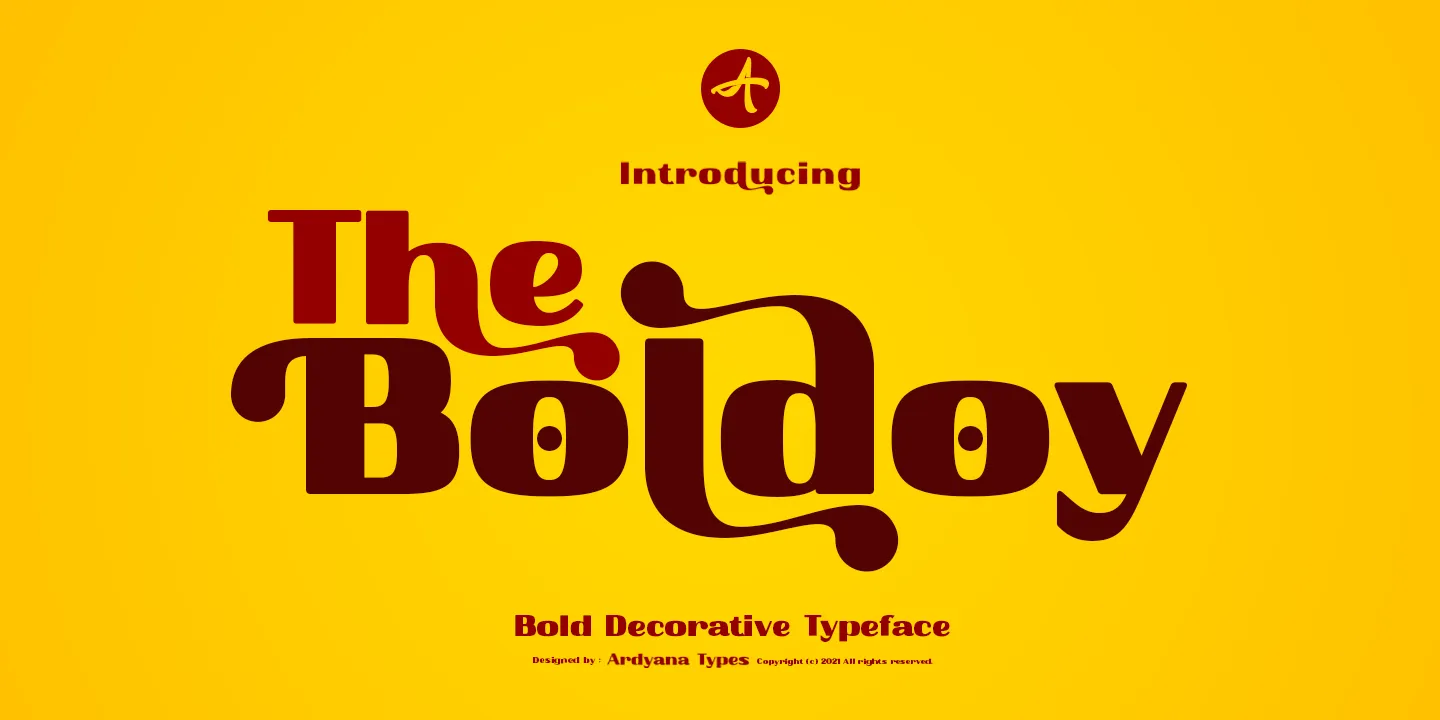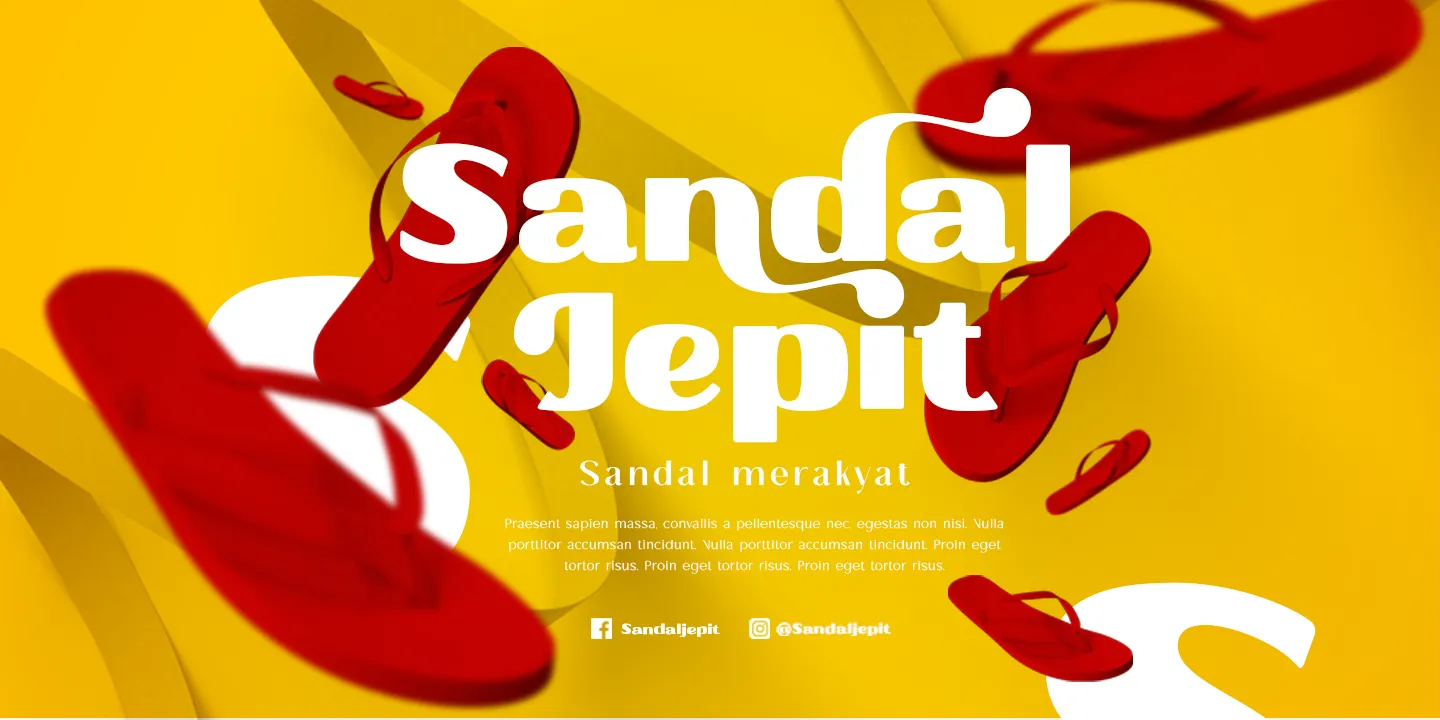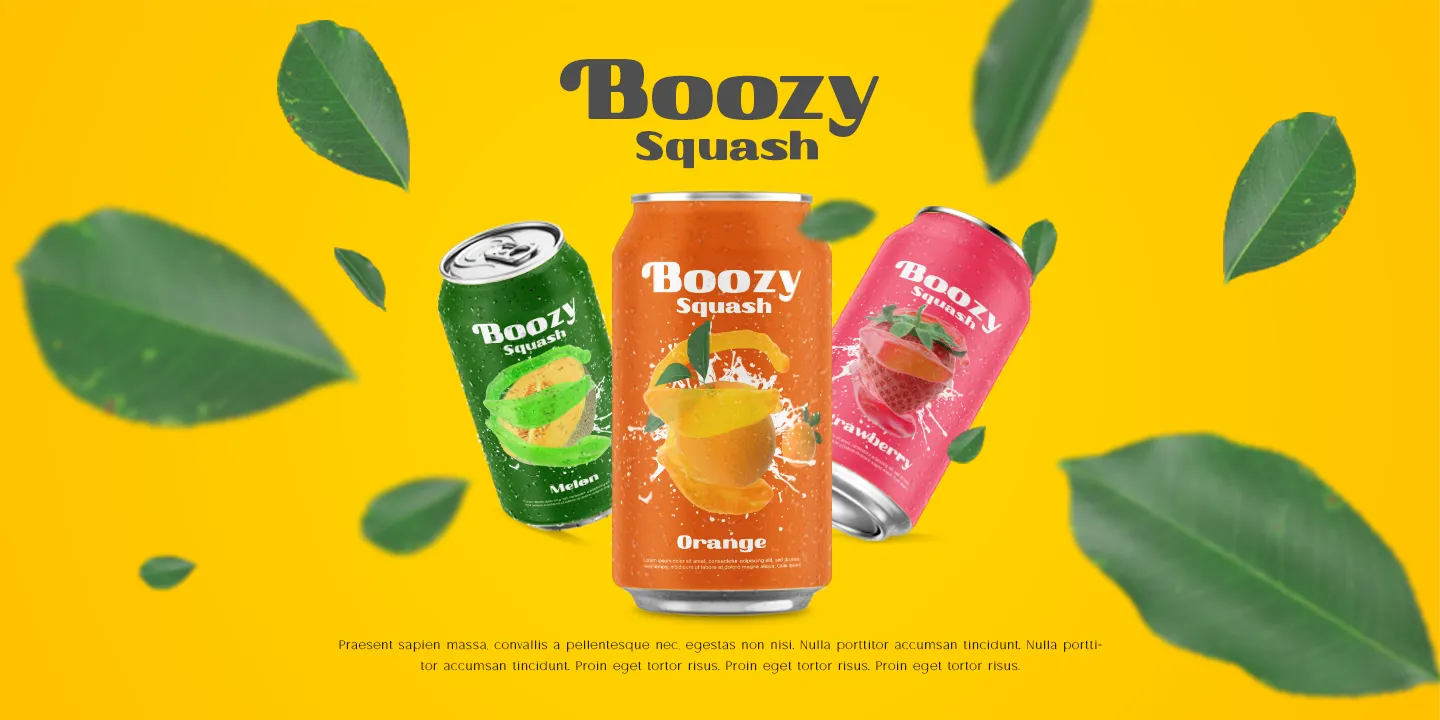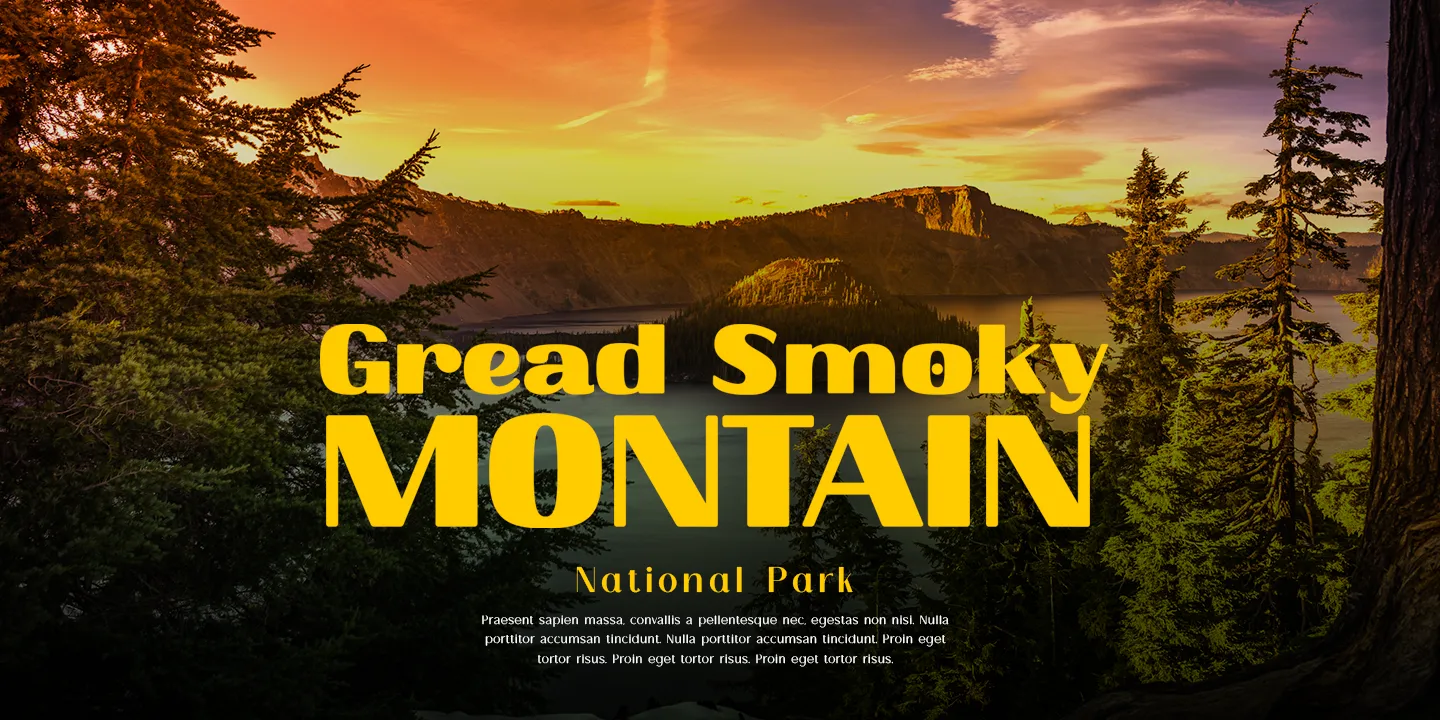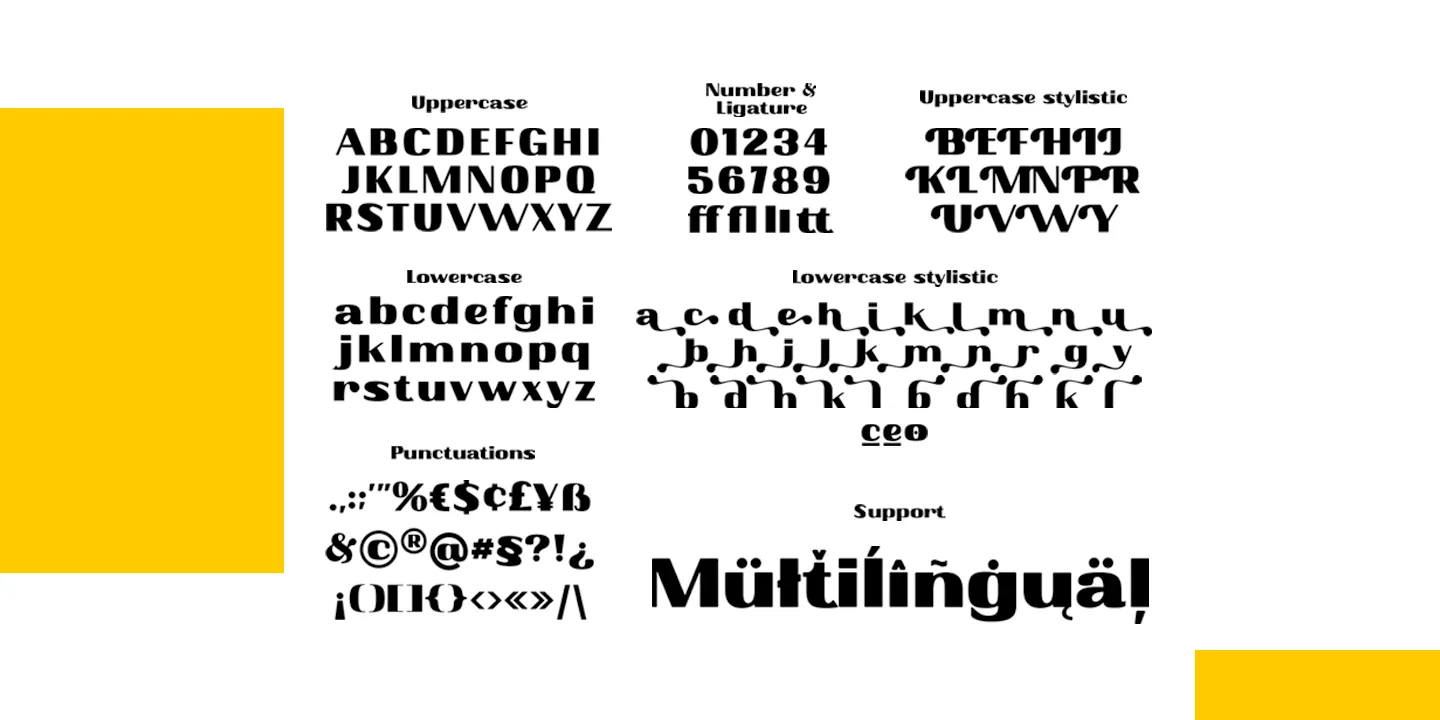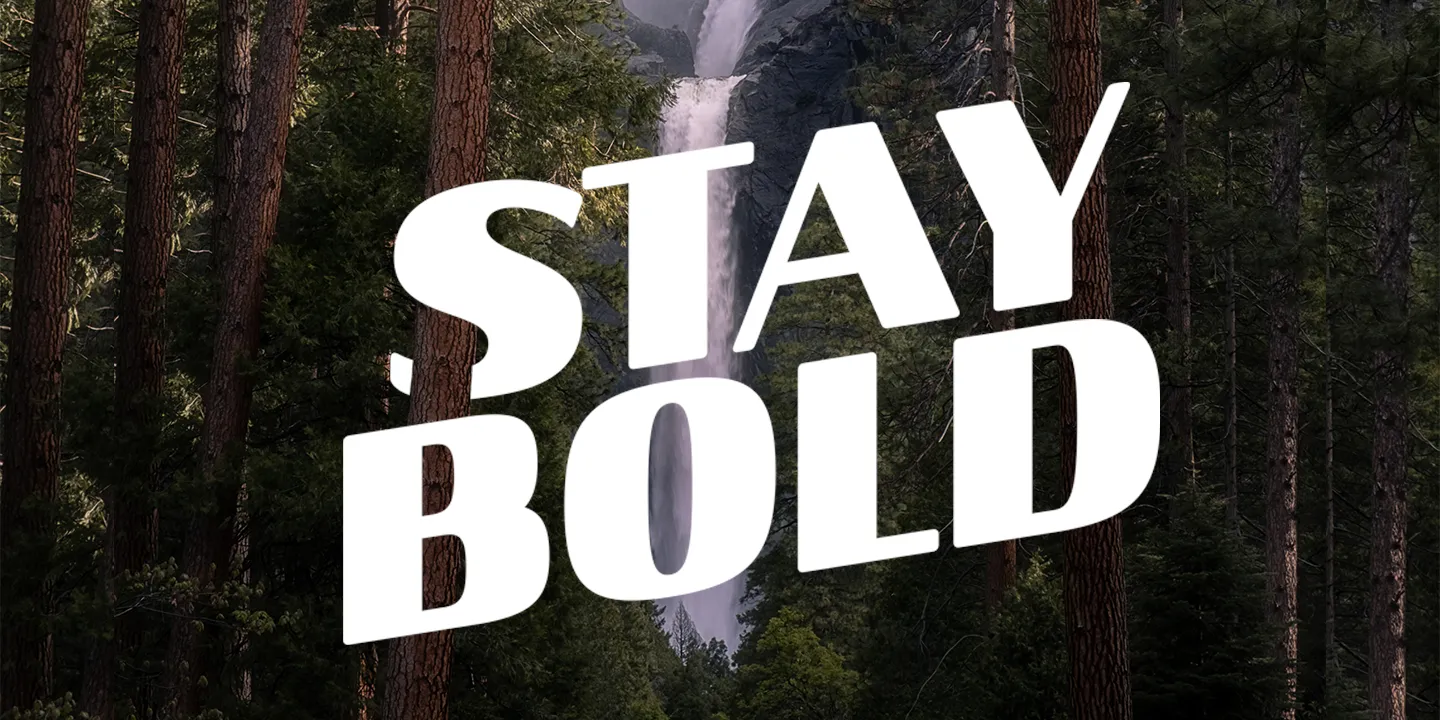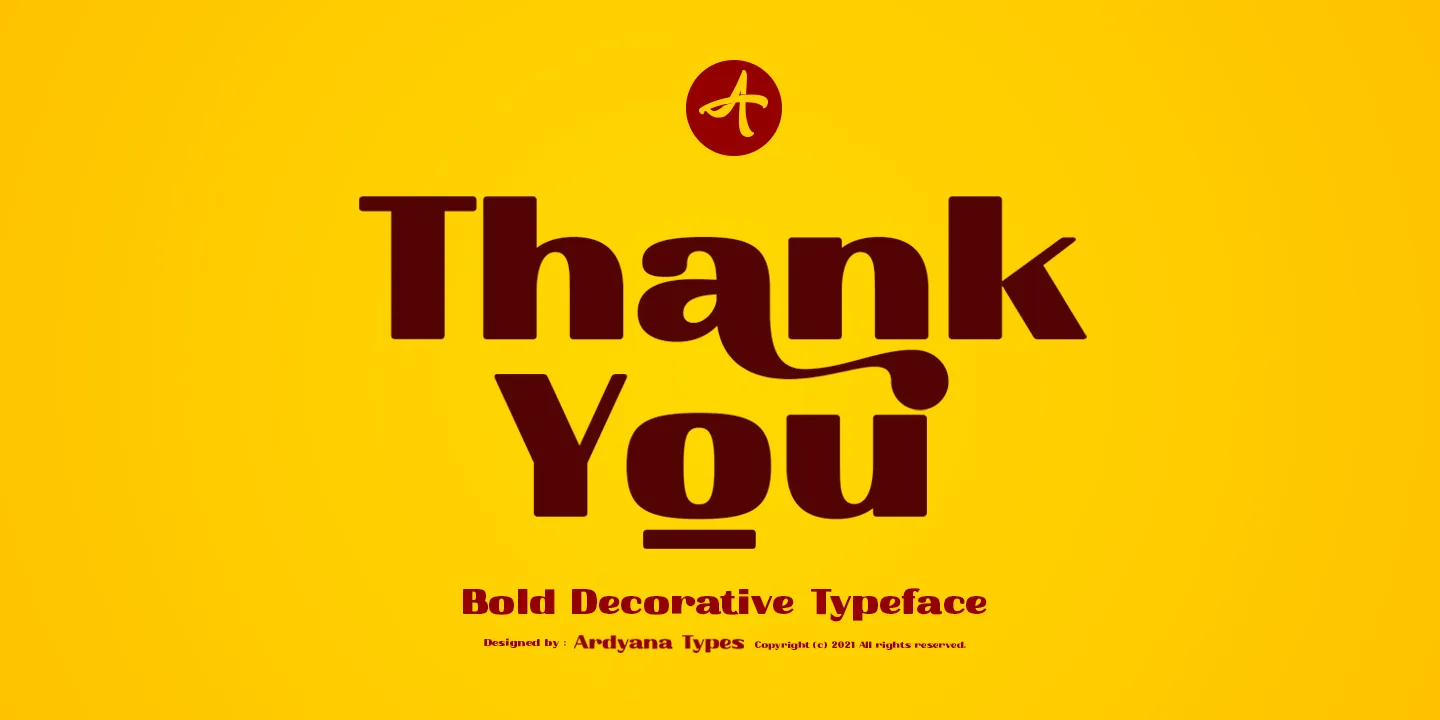
Boldoy
Boldoy is here everyone~ an attractive Typeface with agile and energic character
See the beefy trunk? it will attract more attention like telling “hug me” Boldoy come up with many decoration in multilanguage
When you put it on the boom cover, it will stopping eye from others. The joyful shape impress a cheerful, clingy, gentle, cute, elephant, which super fit for your summer season
Big Boy Boldoy also including alternates and ligatures that will make your idea never run out.
It was so playful font but also easy to read and applied in various design styles such as traveling snacks, packaging, logos, event poster, animal lovers, cool T-shirts, and many more design projects.